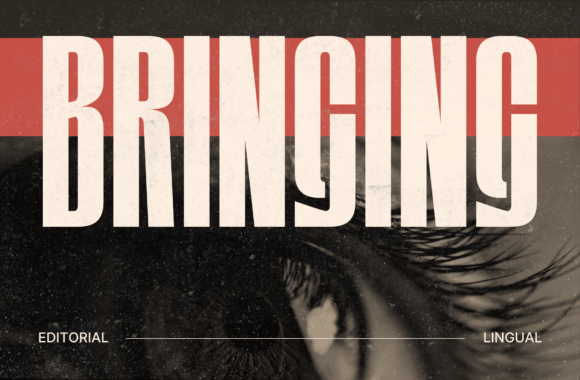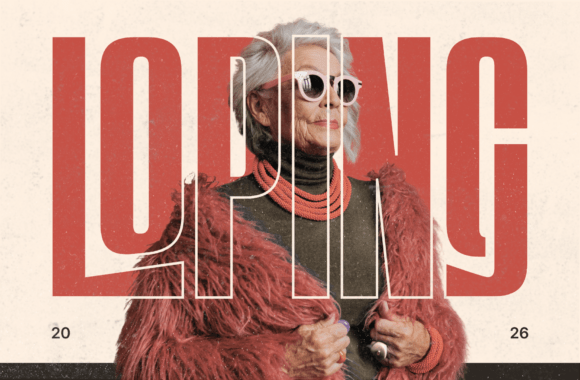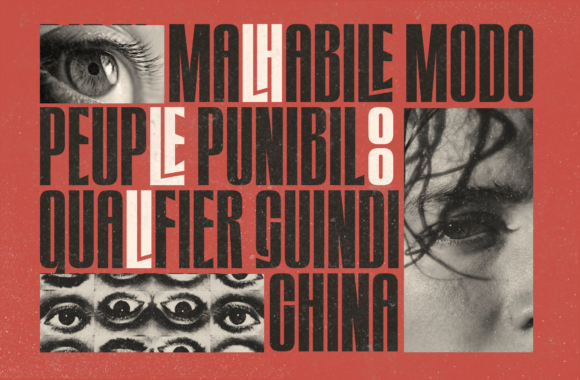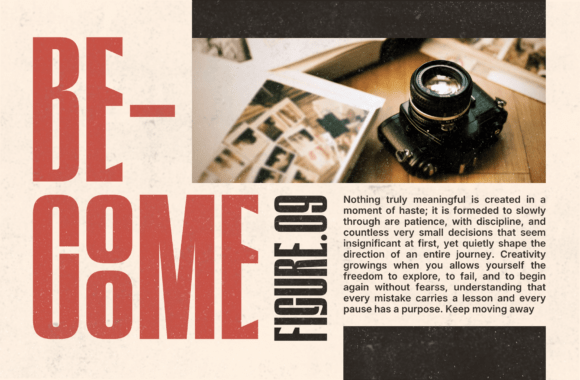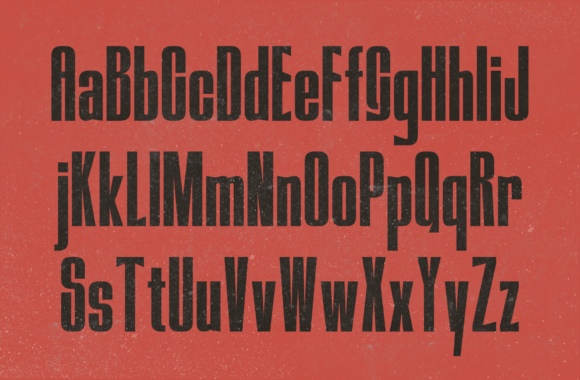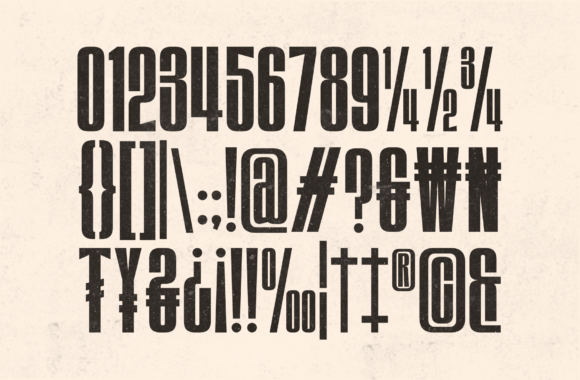
Introduction to Oblisk Font
Oblisk is a powerful, bold condensed display font designed to deliver a strong visual impact.
With its tall proportions, clean geometric structure, and commanding presence , this typeface is perfect for editorial headlines, branding, posters, and modern advertising projects The Oblisk font is the perfect choice for fashion magazine titles, minimalist book covers, and luxury brand identities that aim to project a confident, avant-garde image.
Key Features of Oblisk Font